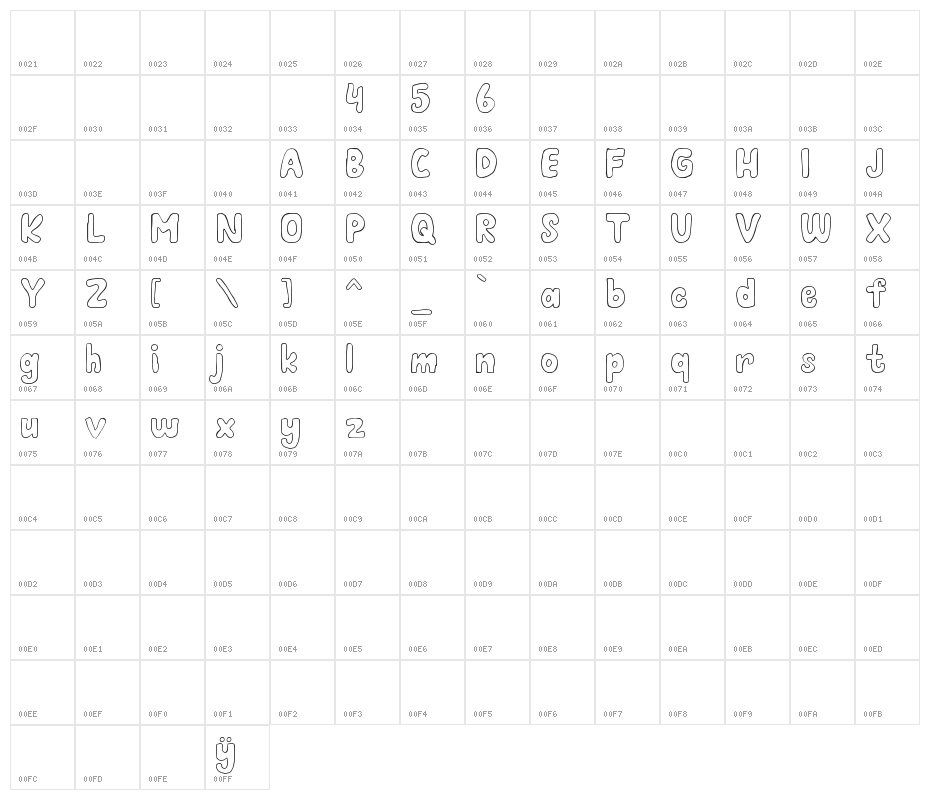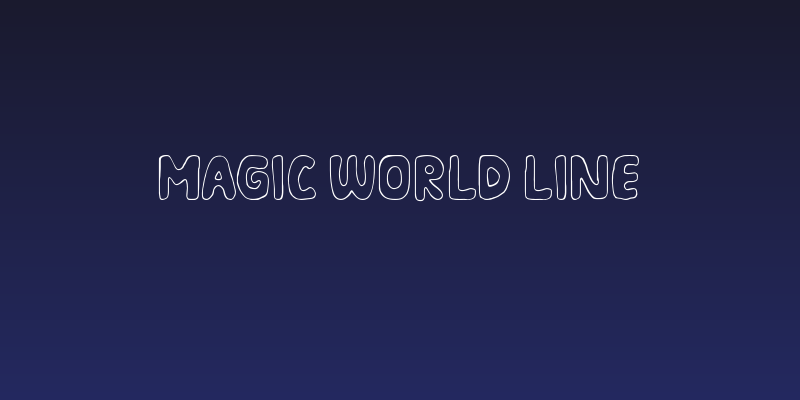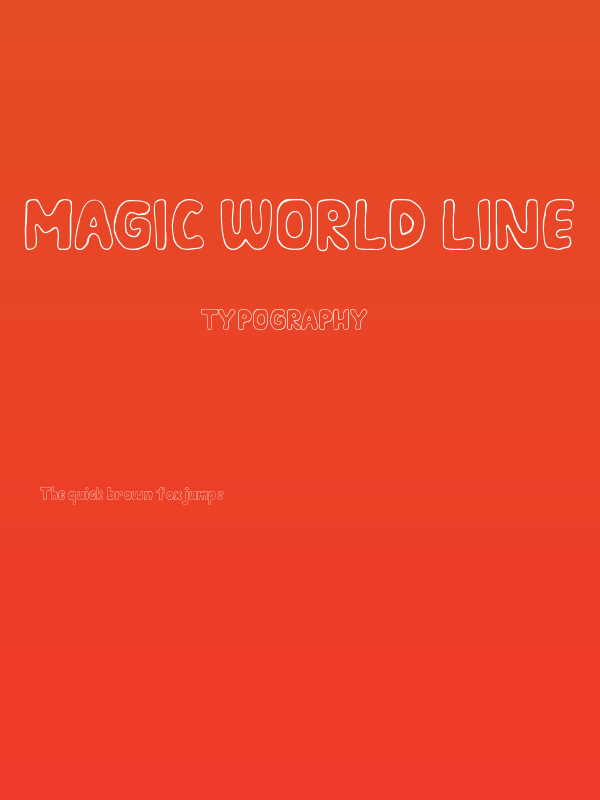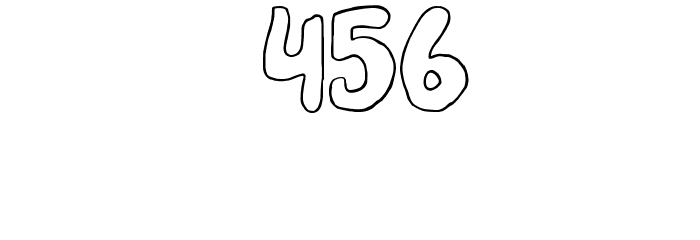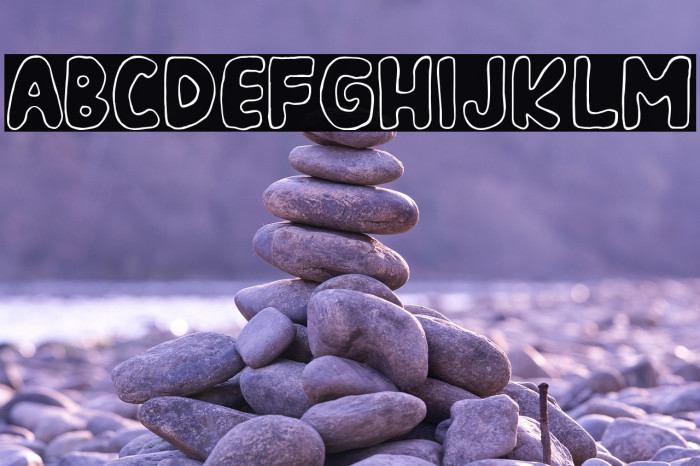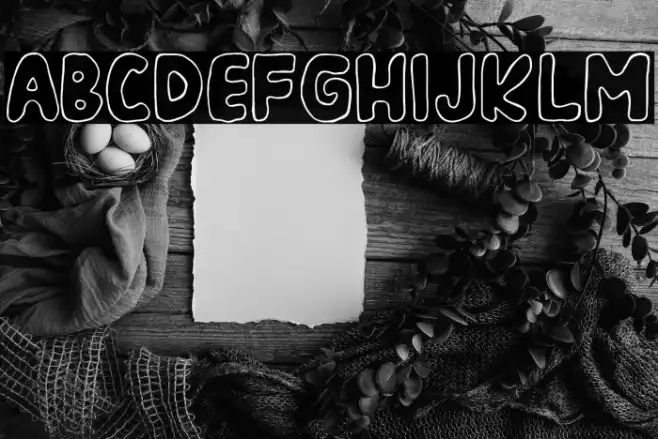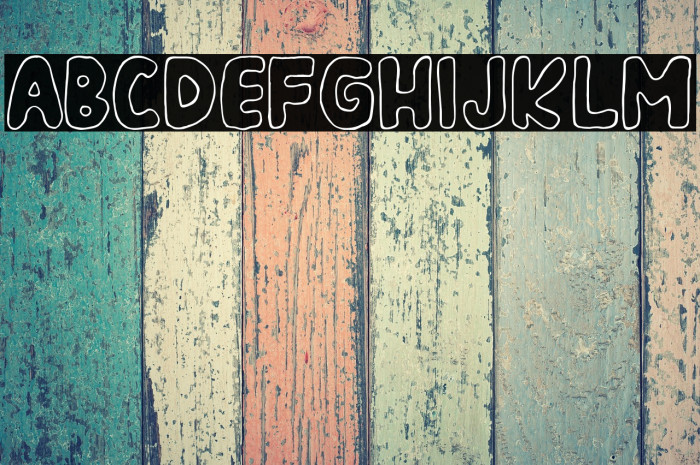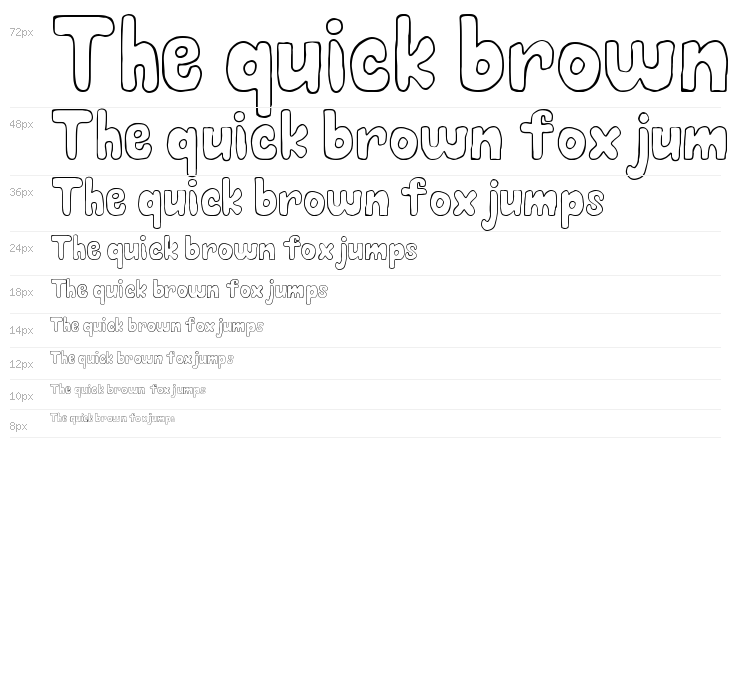
MAGIC WORLD LINE Font
MAGIC WORLD LINE Description
This playful and whimsical font features bold, rounded characters with a hand-drawn appearance. Each letter is outlined, giving it a cartoonish and friendly vibe. The strokes are consistent in width, creating a uniform look across both uppercase and lowercase letters. The numbers follow the same style, maintaining the font's cohesive aesthetic. This font is perfect for projects that require a fun and approachable feel, such as children's books, playful branding, or casual invitations. Its unique style makes it stand out, while the clear outlines ensure readability.
| Proposed Projects | Ideal for children's books, playful branding, casual invitations, and cartoon-themed designs. |